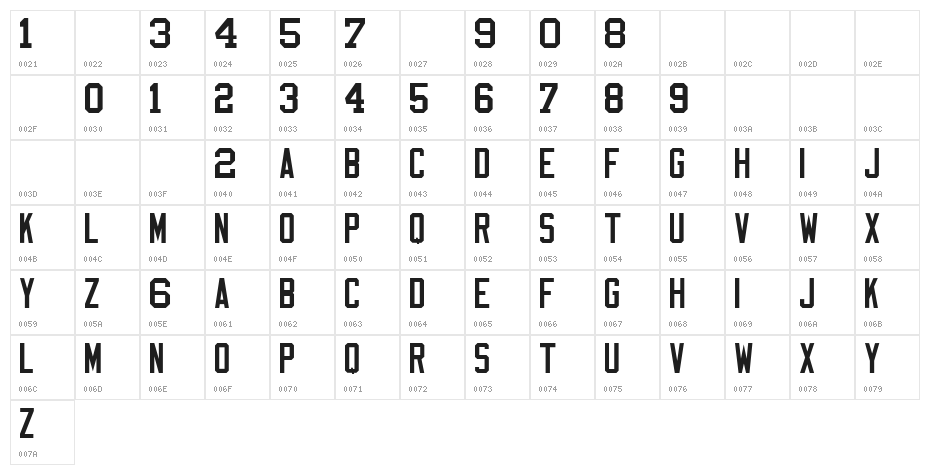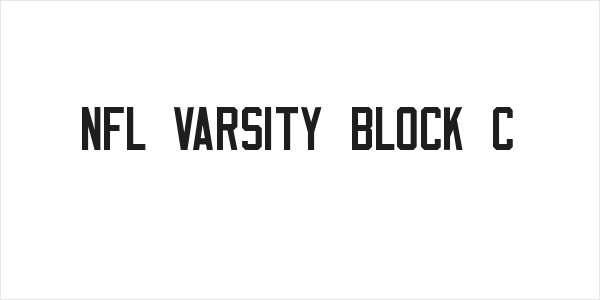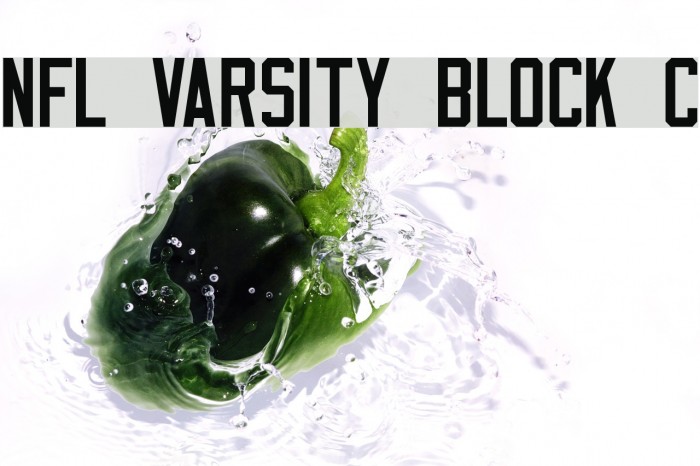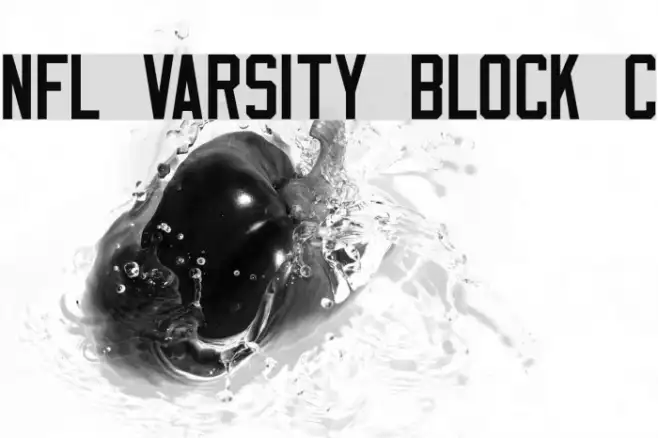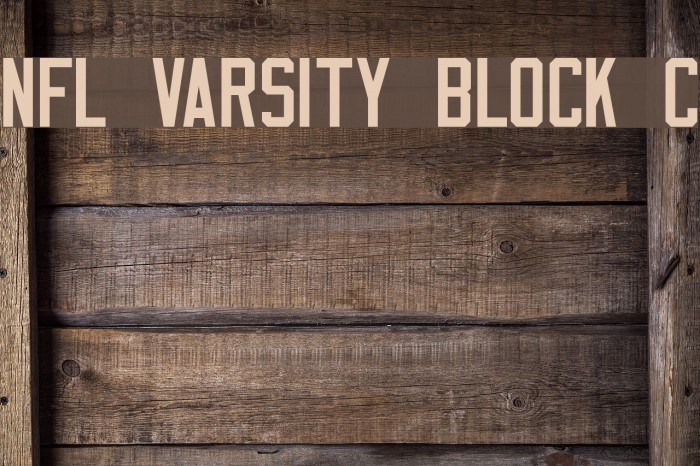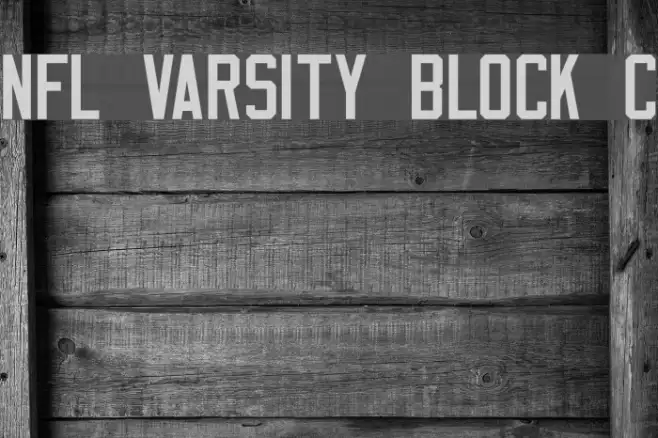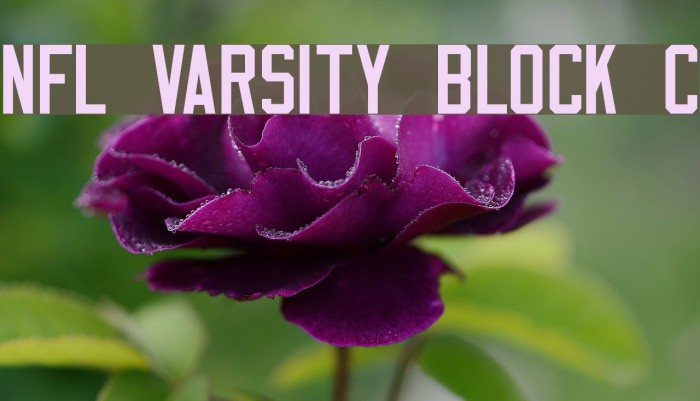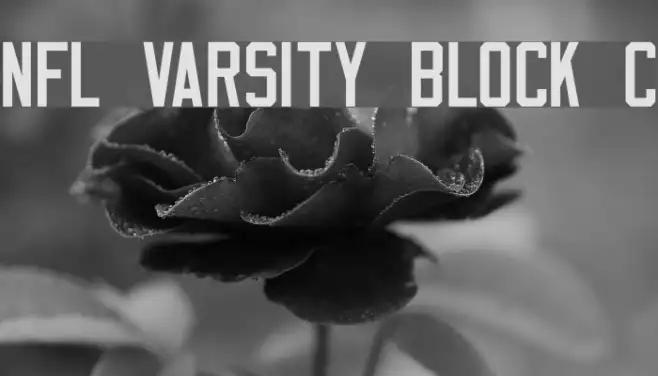
NFL Varsity Block C Font
NFL Varsity Block C Description
This font features a bold and robust design with a strong, athletic aesthetic reminiscent of traditional varsity lettering. The characters are blocky and angular, with a uniform stroke width that conveys strength and stability. Each letter is well-defined, with sharp edges and a consistent height, making it highly legible even from a distance. The numbers follow the same design principles, ensuring a cohesive look across all characters. This style is ideal for conveying a sense of power and tradition, often associated with sports teams and collegiate branding.
| Overall Style | Classic |
| Proposed Projects | Ideal for sports team branding, athletic apparel, school banners, and event posters. |